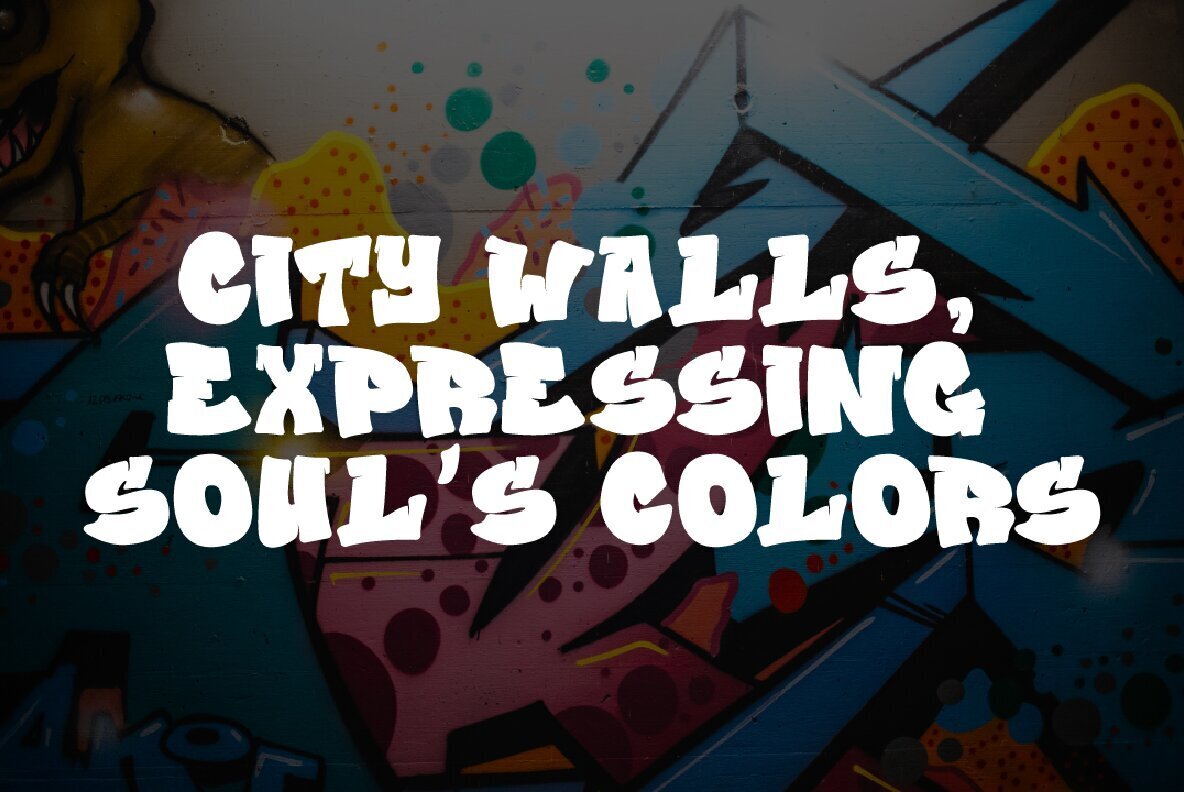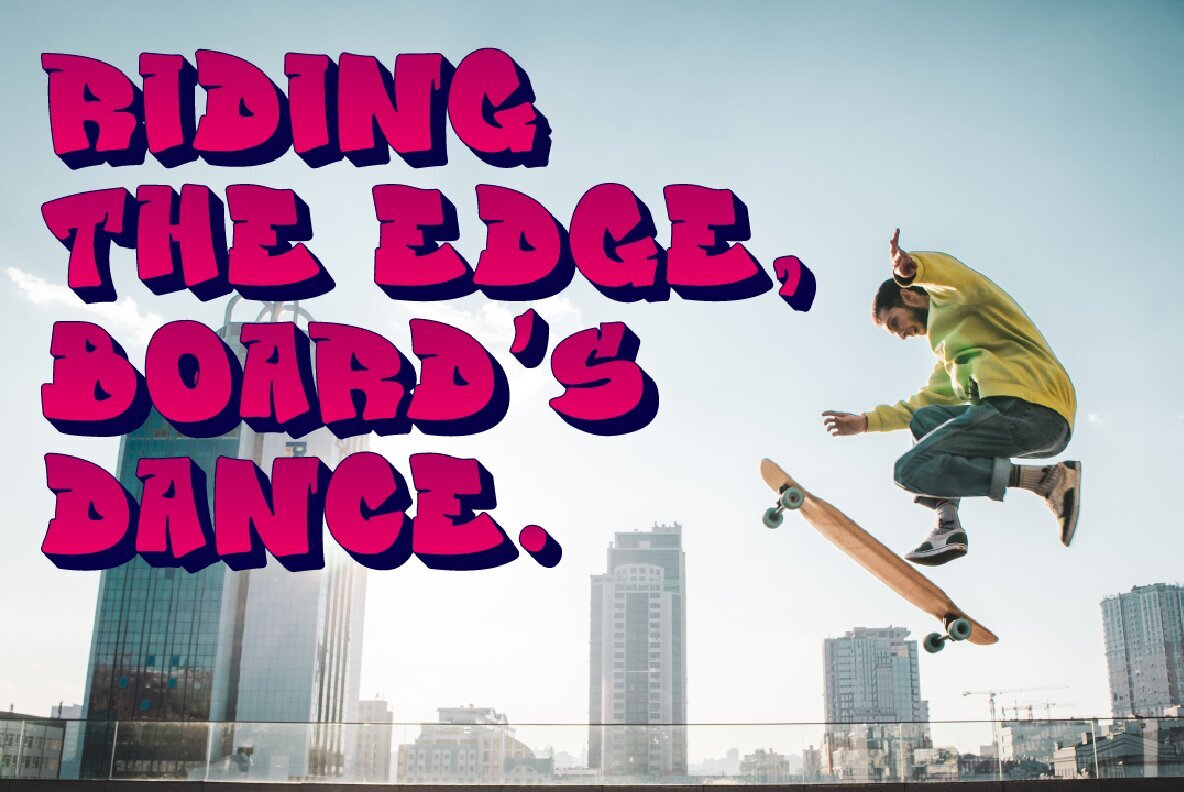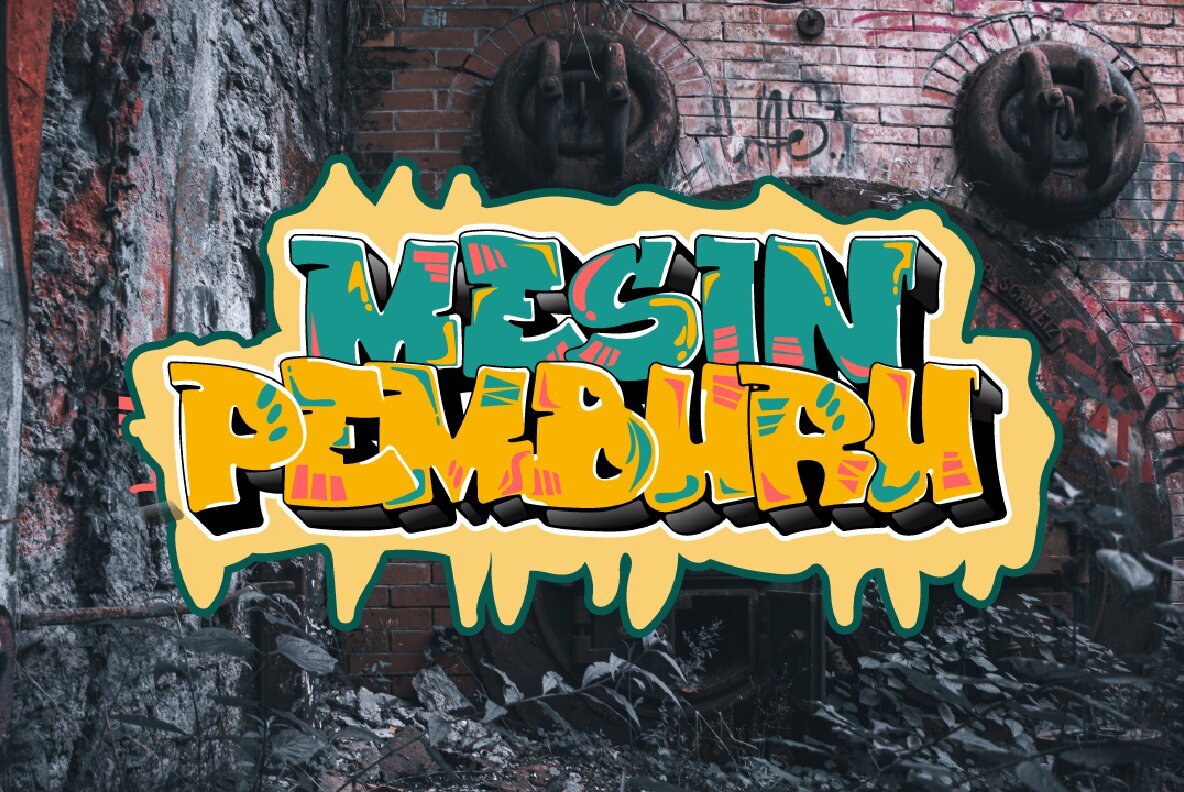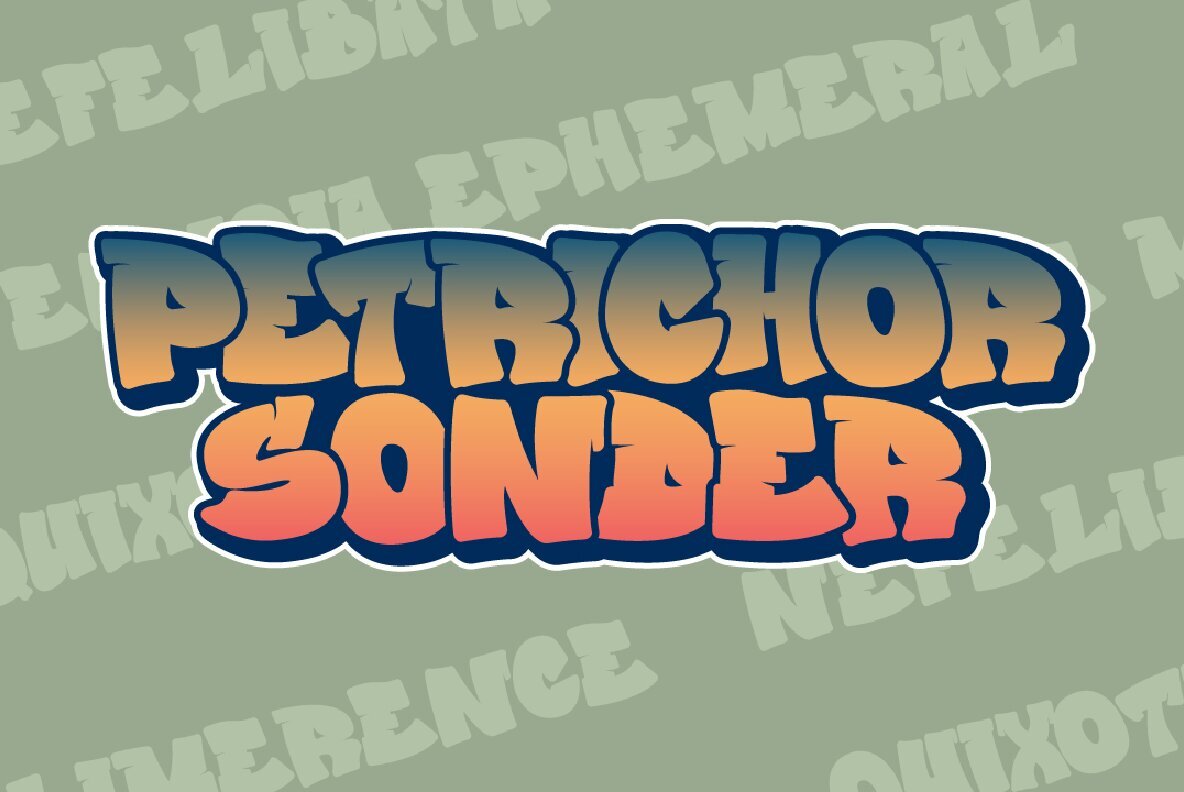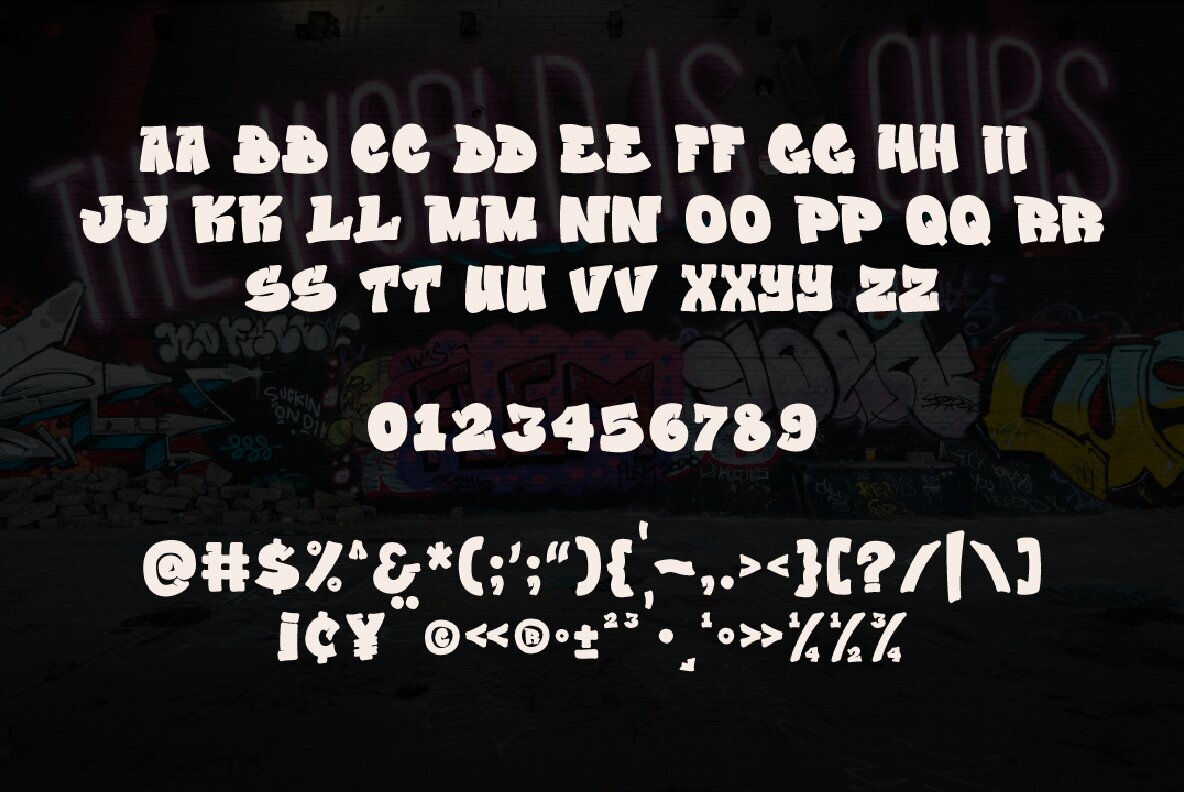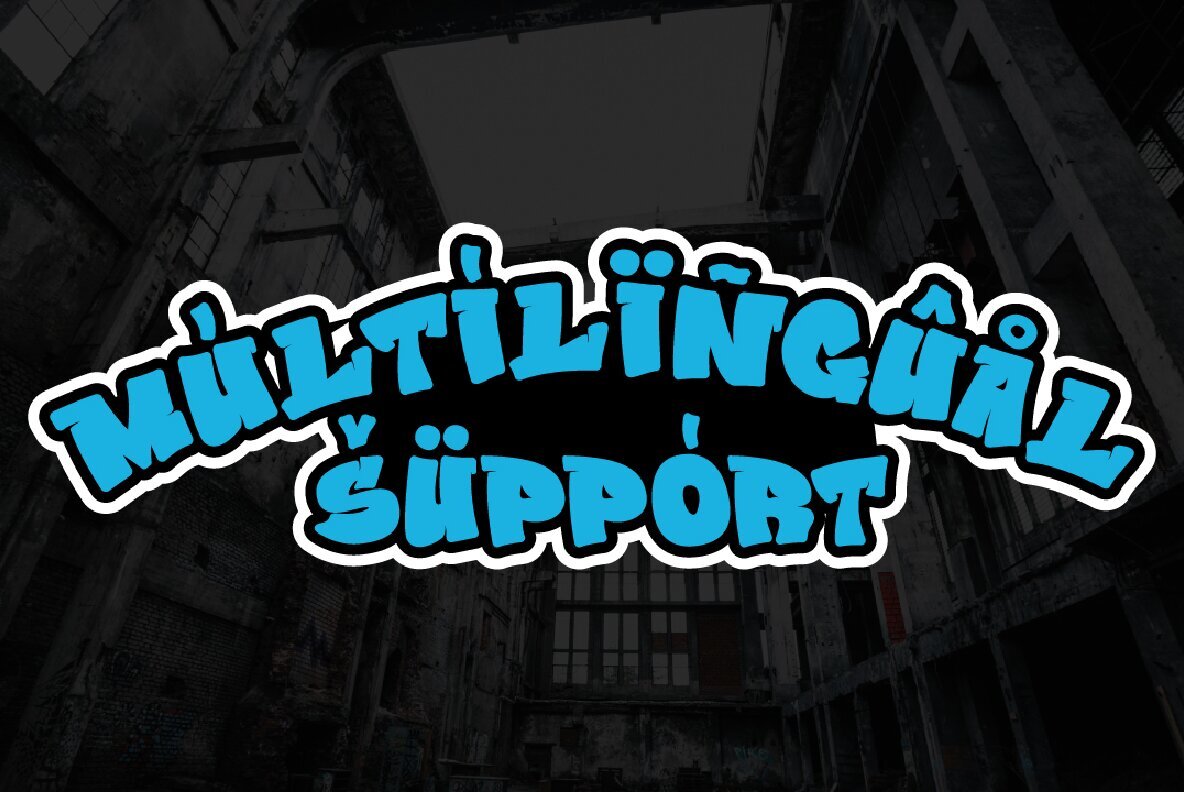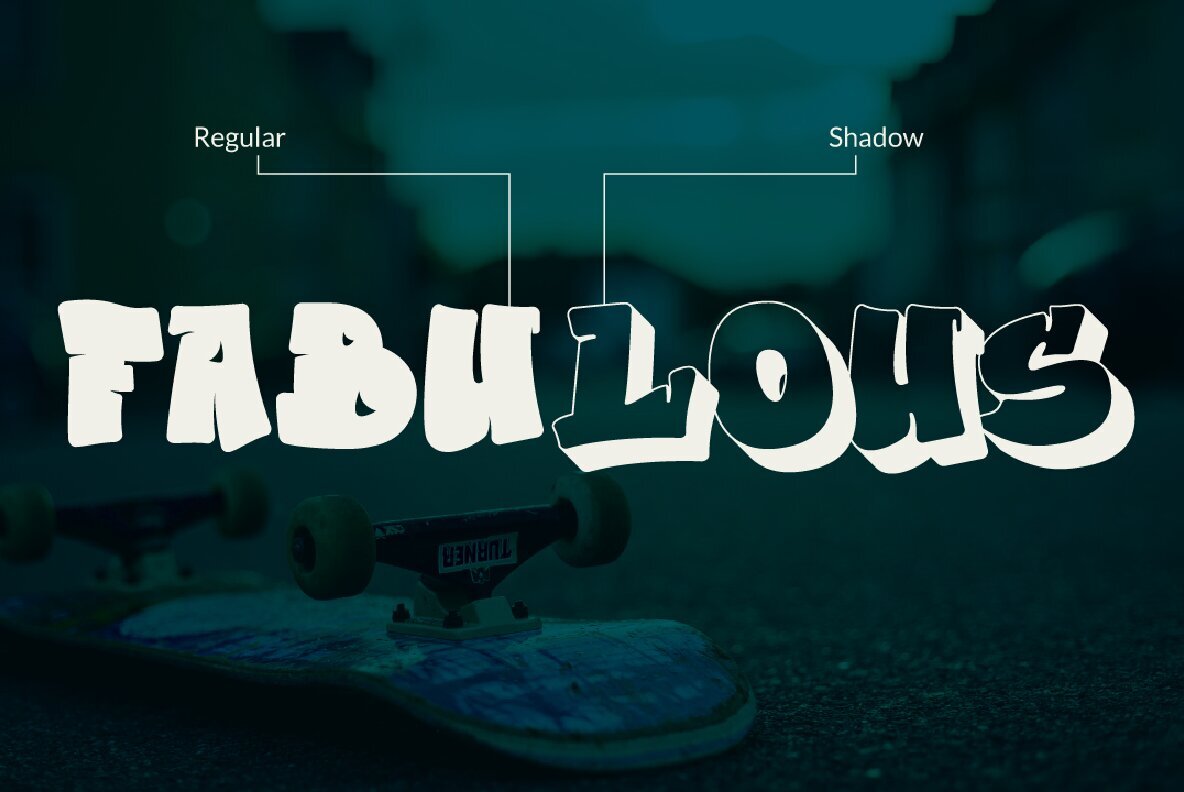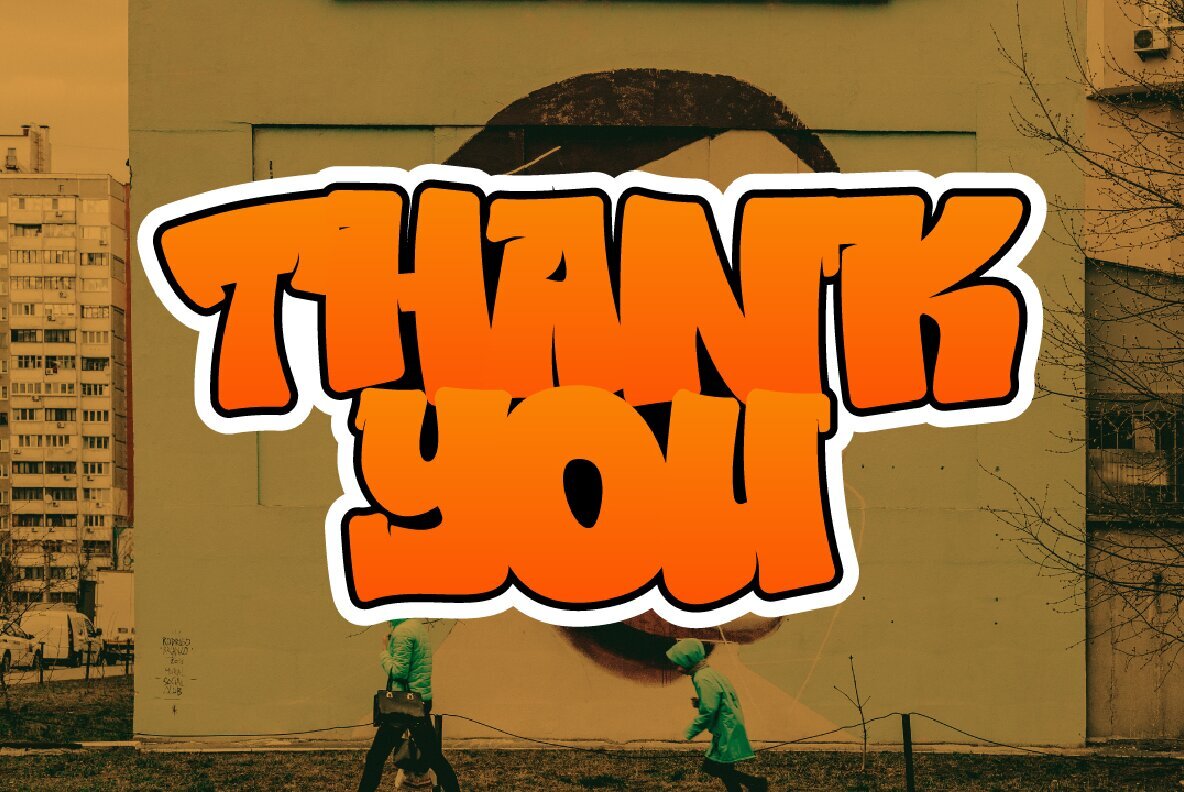
Saberoth Font
Saberoth is an innovative graffiti font that seamlessly combines the bold 'piece' style of street art with a contemporary and versatile edge. This modern typeface injects an artistic sensibility into your design projects, infusing them with urban vibrancy. Each character in Saberoth is intricately designed to embody the essence of street art, reminiscent of meticulously spray-painted masterpieces adorning cityscapes. The adaptability of Saberoth makes it suitable for a wide range of design projects. It can elevate branding, headings, invitations, logotypes, wall art illustrations, labels, and more to new levels of creativity.Saberoth: Dynamic Graffiti-Inspired Font
Versatility Across Design Projects